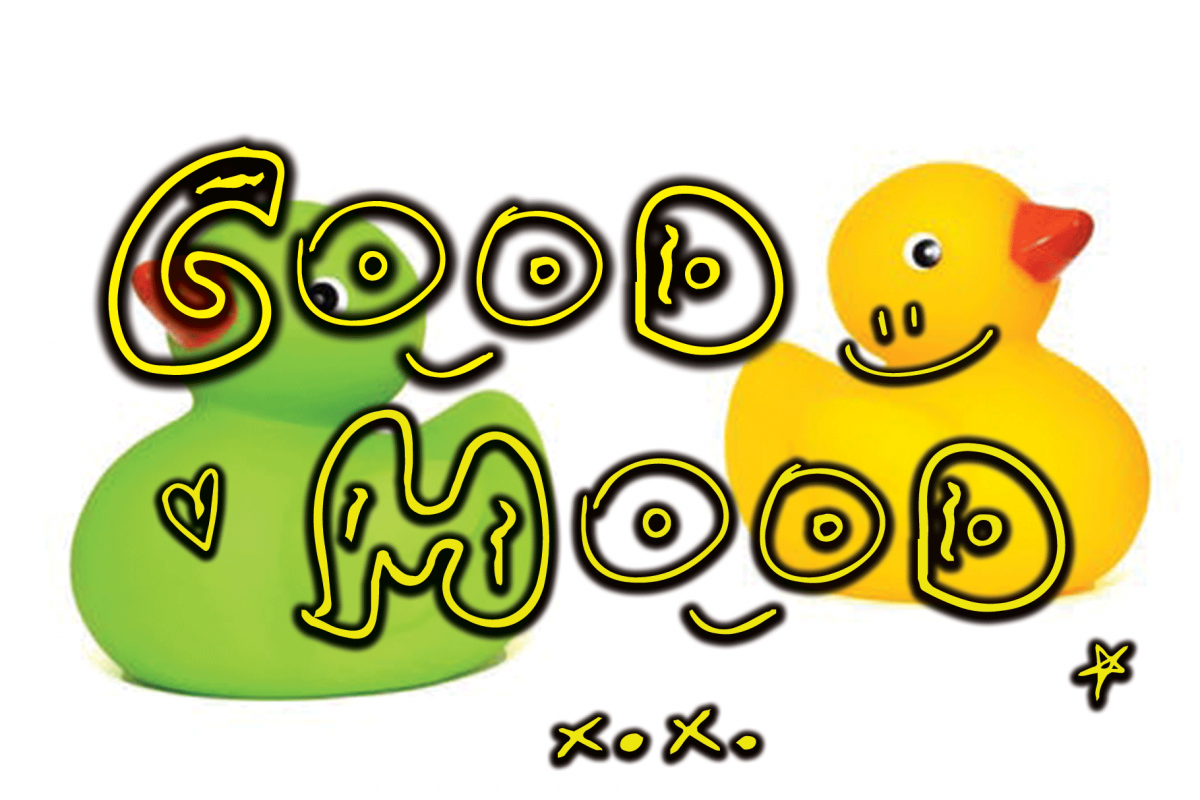
GOOD MOOD
GOODMOOD
GOOD MOOD a font work with the hands of my best friend MEYTAL thanks to her, this is a unique font to work on various needs such as nameplate, party invitations, children's other various purposes which lead to a warm and memorable atmosphere. this font is UPPERCASE only, for its Lowercase only to display ORNAMENT or SPECIALCHARACTER only.
GOOD MOOD example image 1